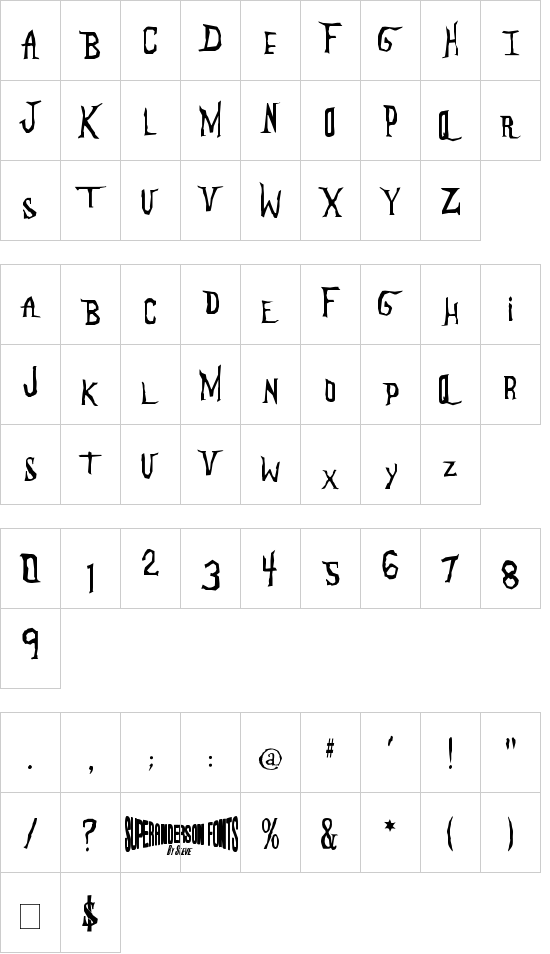
Anderson The Mysterons
About Anderson The Mysterons
Anderson The Mysterons is a horror-themed display font with eerie, unsettling letterforms that carry a creepy atmosphere. The characters feel cold and slightly alien, with strained shapes and an uneasy weight that suggests something watching from the dark rather than friendly type.